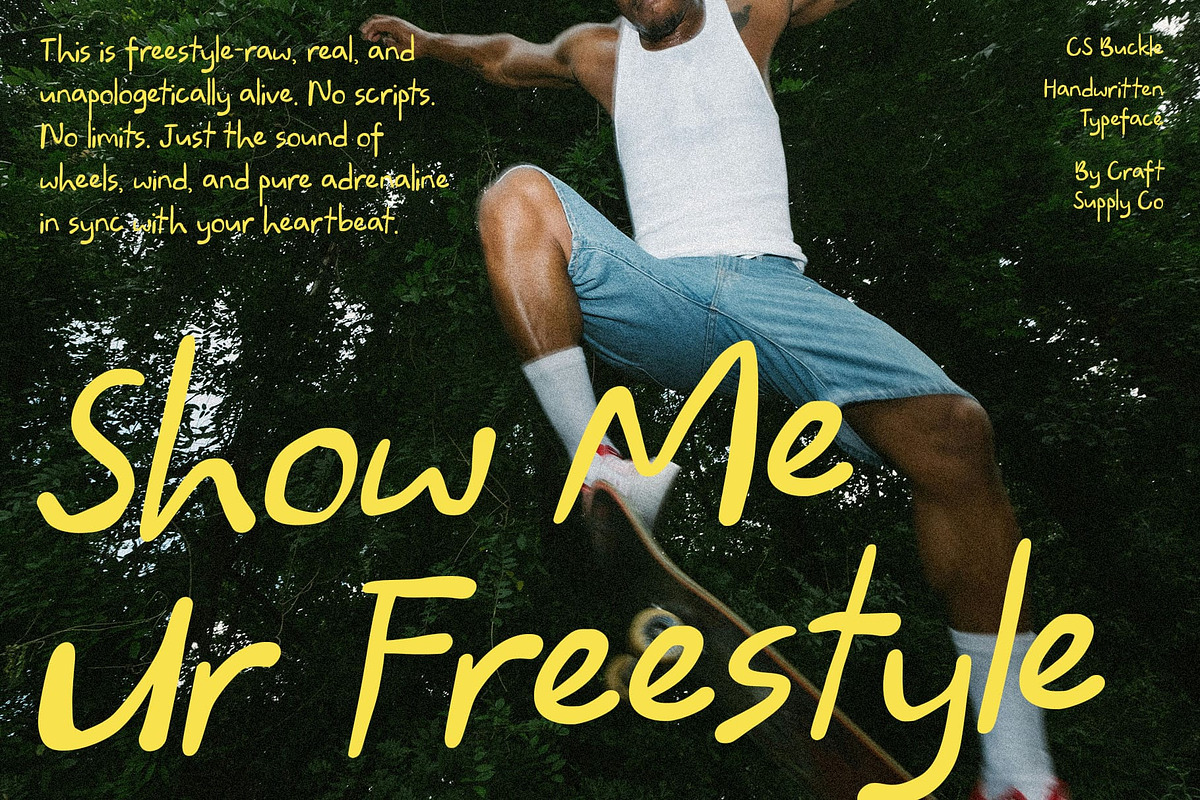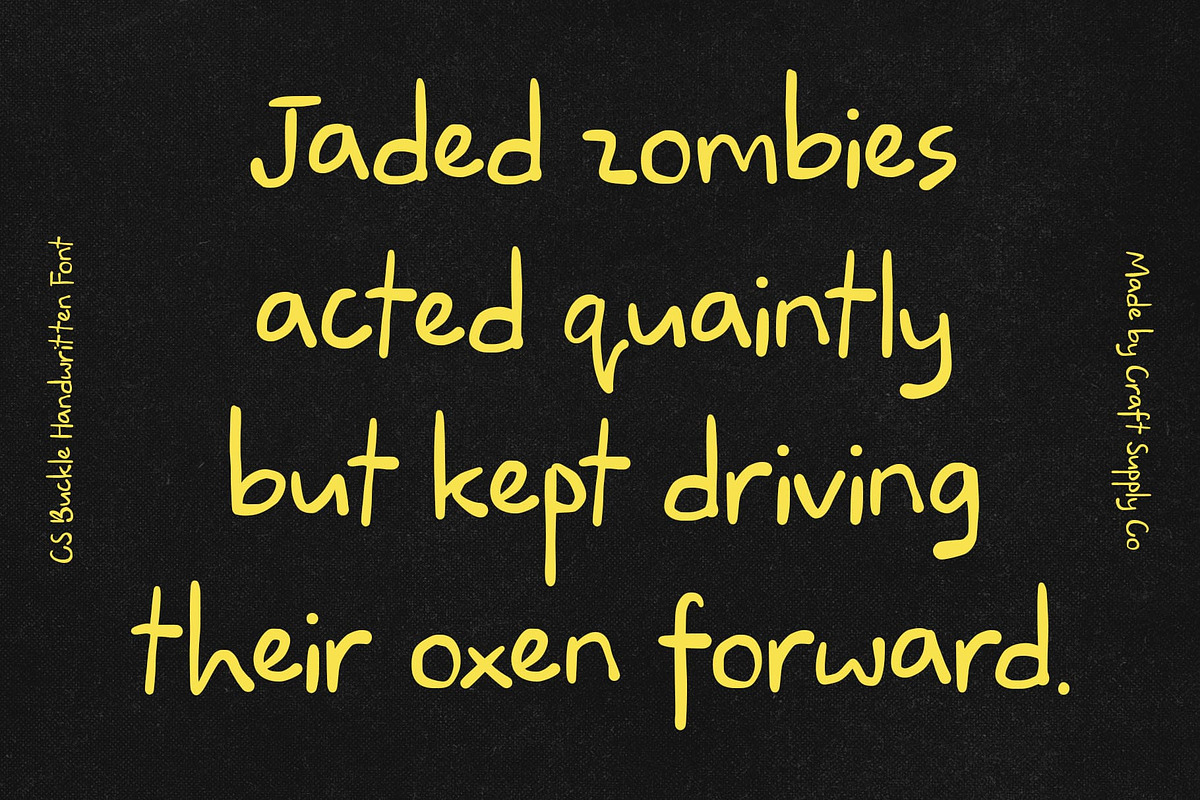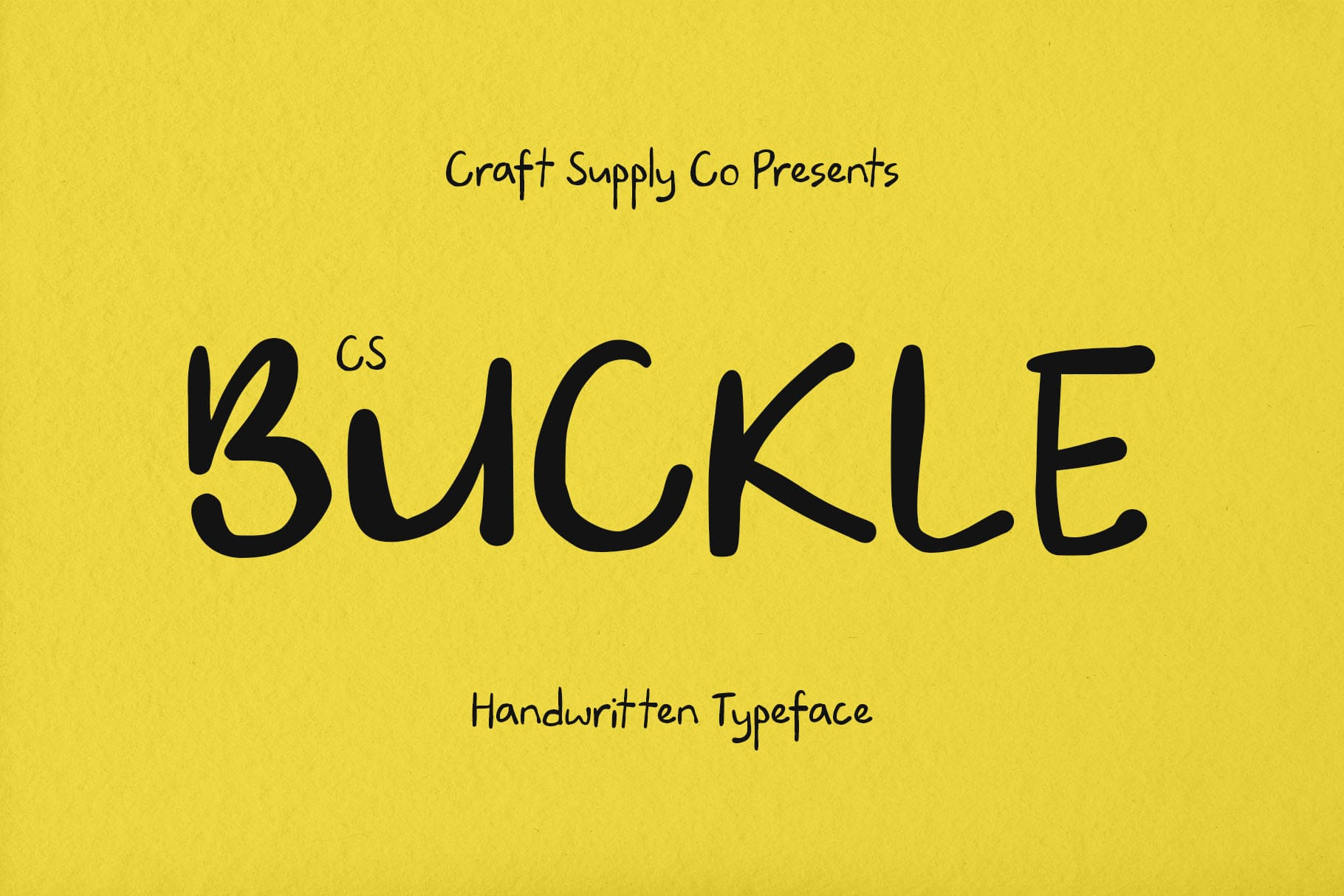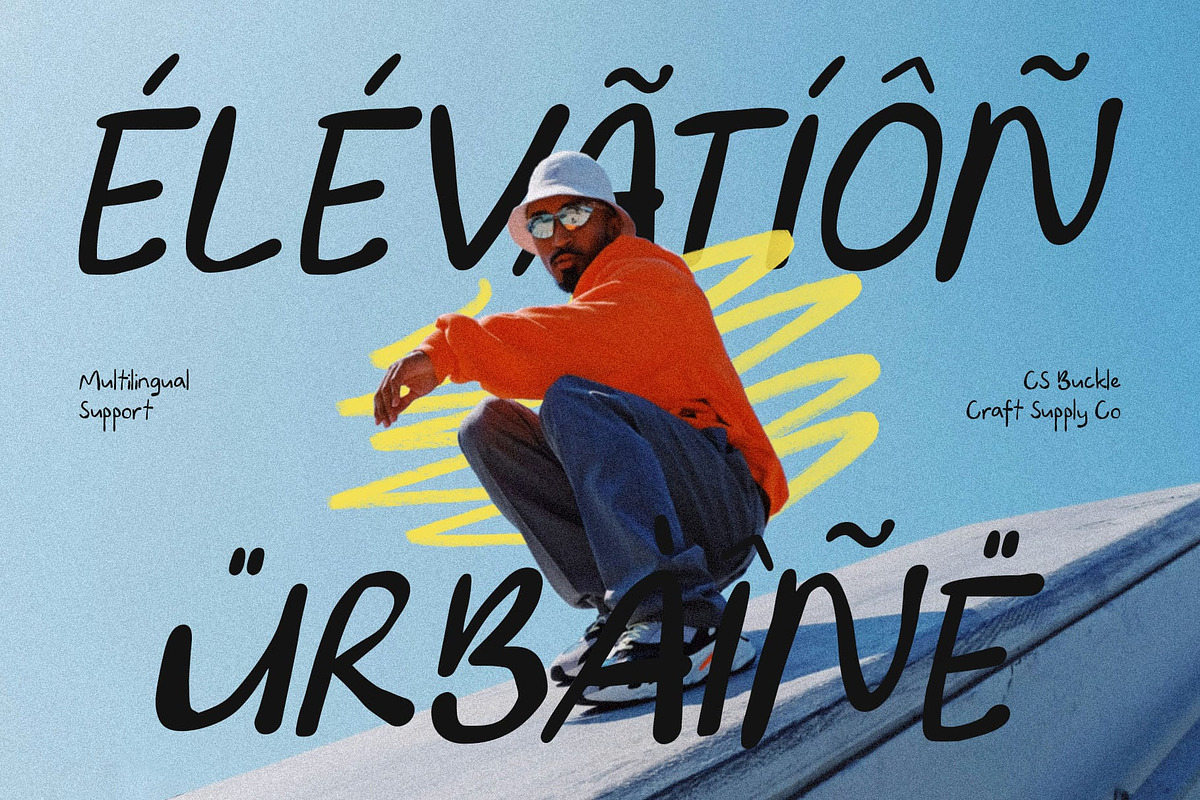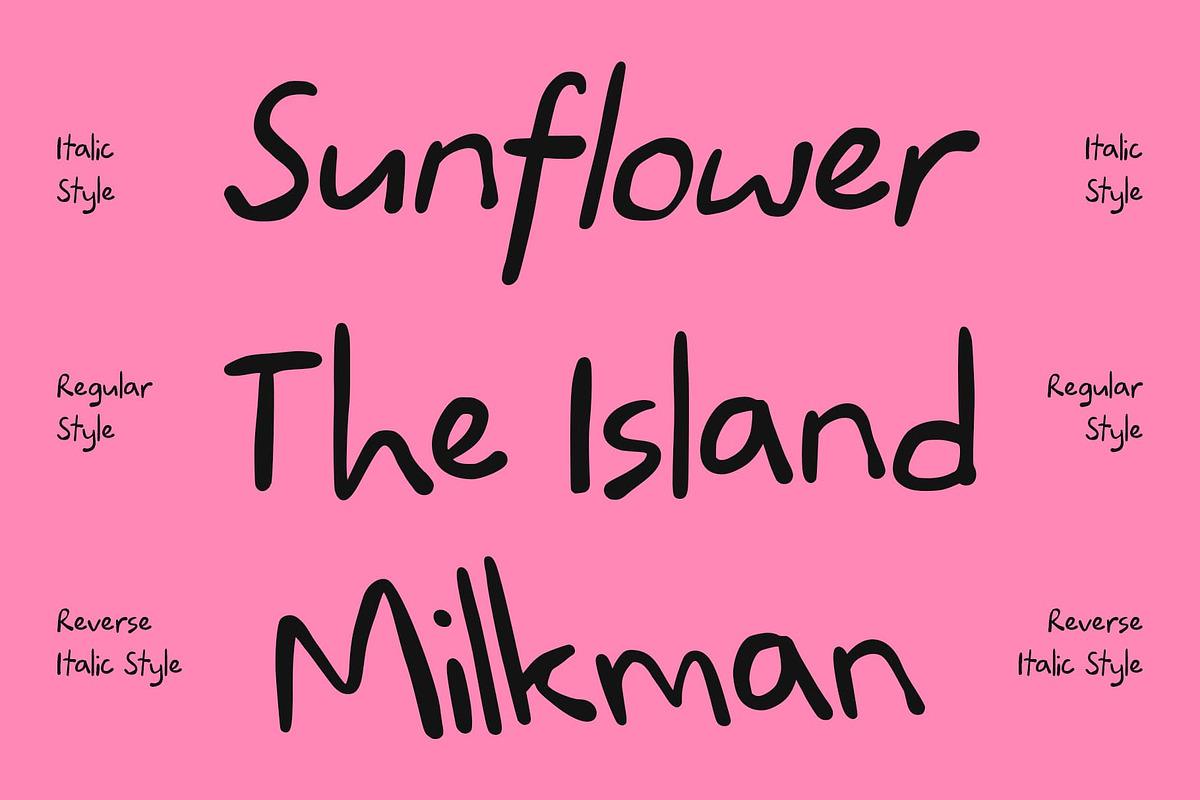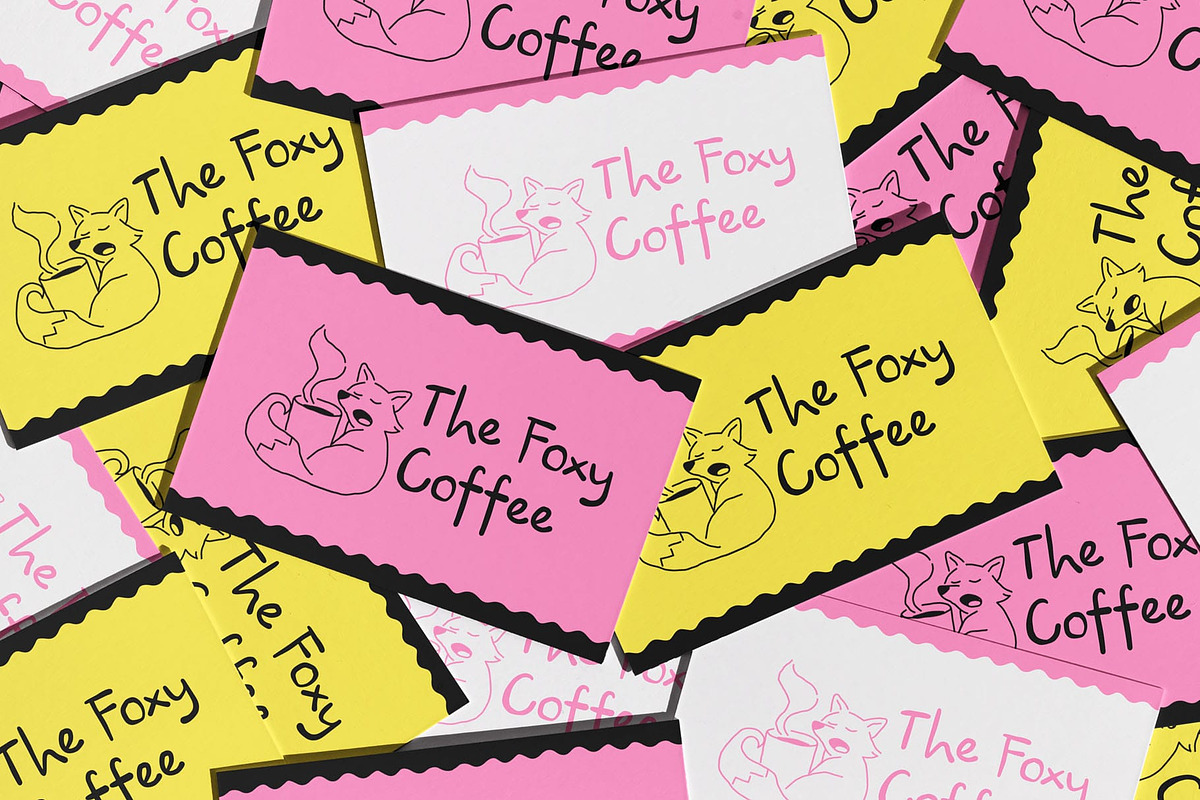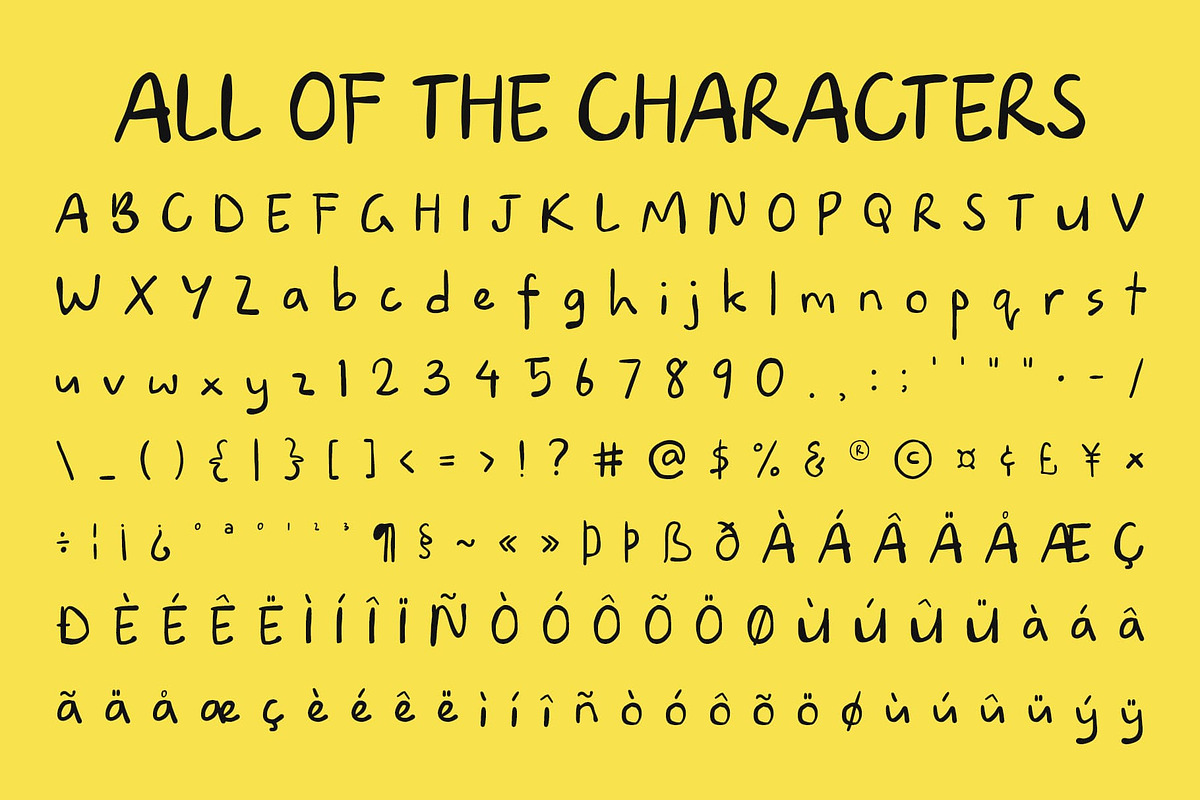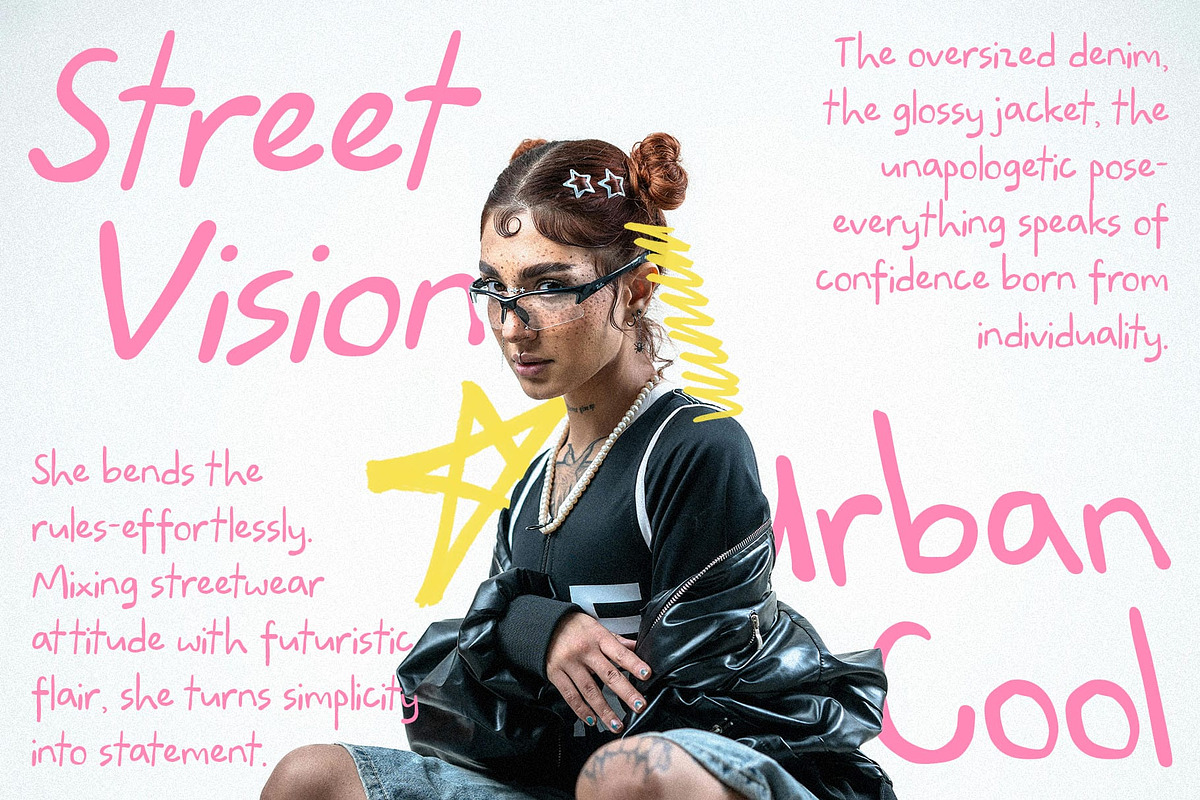
CS Buckle – Ugly Font
CS Buckle: Imperfectly Bold, Playfully Rebellious
Ugly Font with Irregular Strokes This is a cute yet chaotic that ugly font celebrates imperfection with confidence. Its look sans serif with irregular strokes and unpolished shapes create a raw, energetic aesthetic that breaks traditional design rules. Playful, quirky, this font is made for designers who dare to stand out and embrace creativity without boundaries.
Irregular Forms for Authentic Expression Every letter in this font carries an unpredictable charm uneven lines, unconventional proportions, and spontaneous shapes that radiate individuality. This handcrafted imperfection gives the font its distinctive personality, making it ideal for projects that value originality and artistic freedom over conventional beauty.
Playful Energy for Bold Visuals This font thrives on spontaneity. Its rough edges and lively rhythm inject a burst of youthful energy into any design. Whether used for youth-oriented branding, experimental posters, or expressive typography, it delivers a rebellious yet approachable character that instantly grabs attention.
Perfect for Creative and Anti-Mainstream Designs From art projects and underground zines to daring visual campaigns, this font challenges the ordinary and celebrates the unexpected. Its “ugly” design turns imperfection into style, making every composition feel human, raw, and authentic. With this font, your designs don’t just speak they shout with creativity, confidence, and playful rebellion.